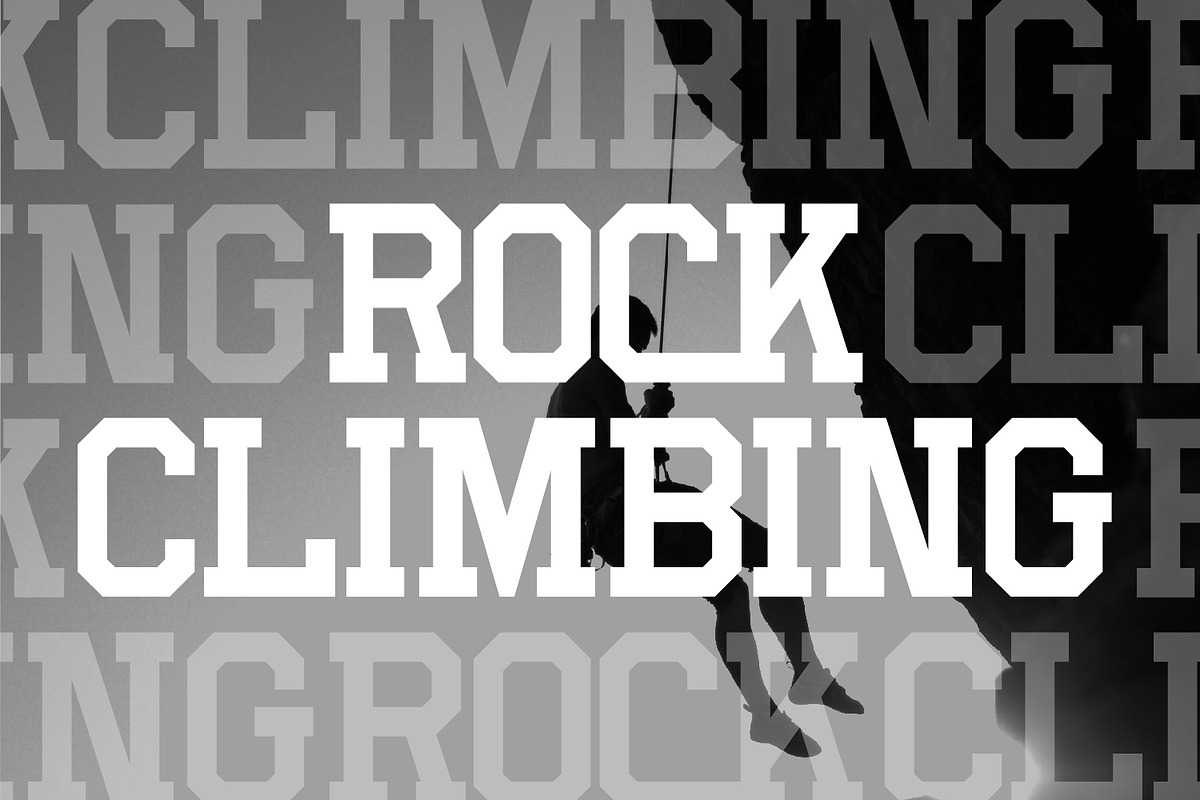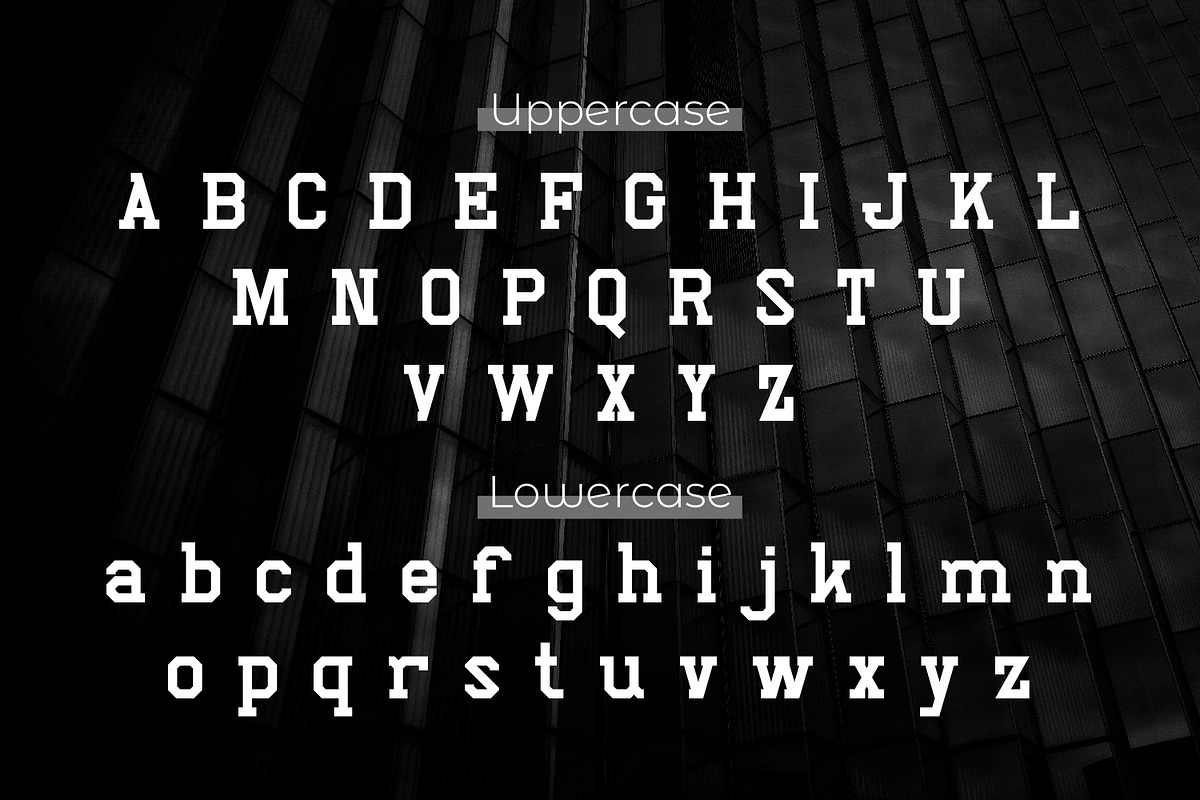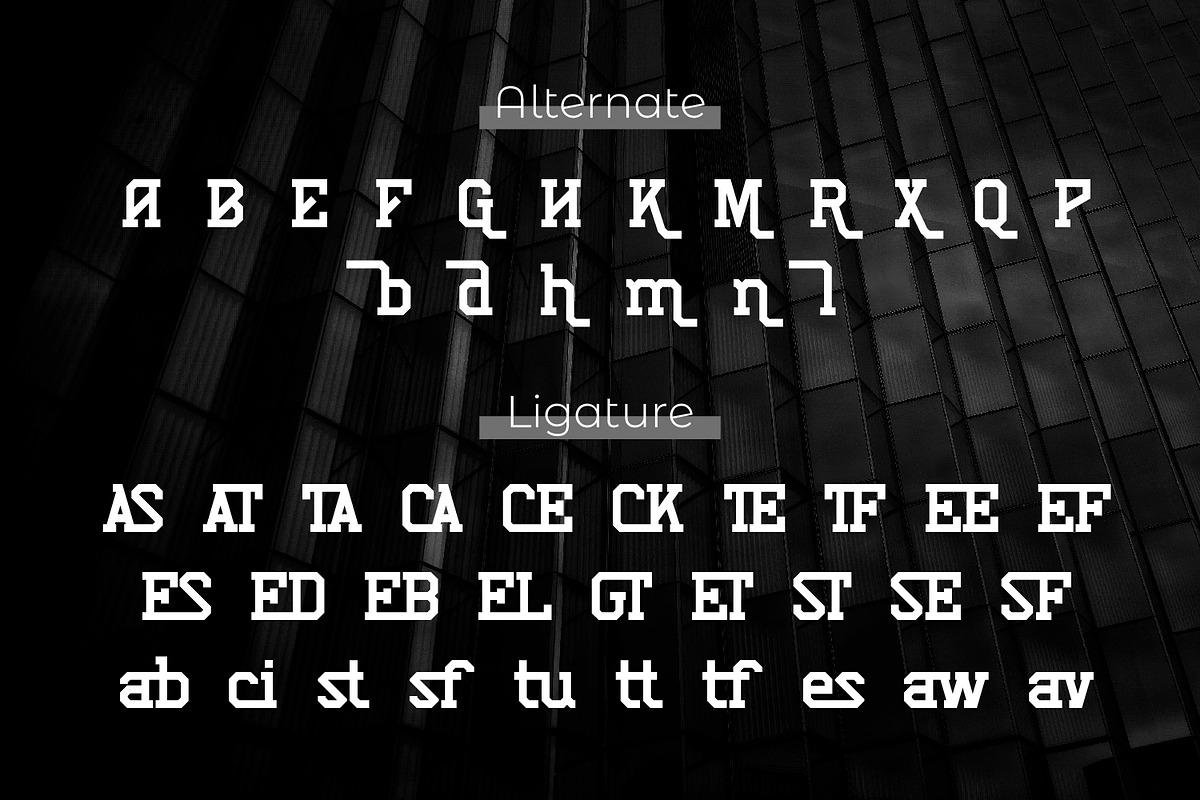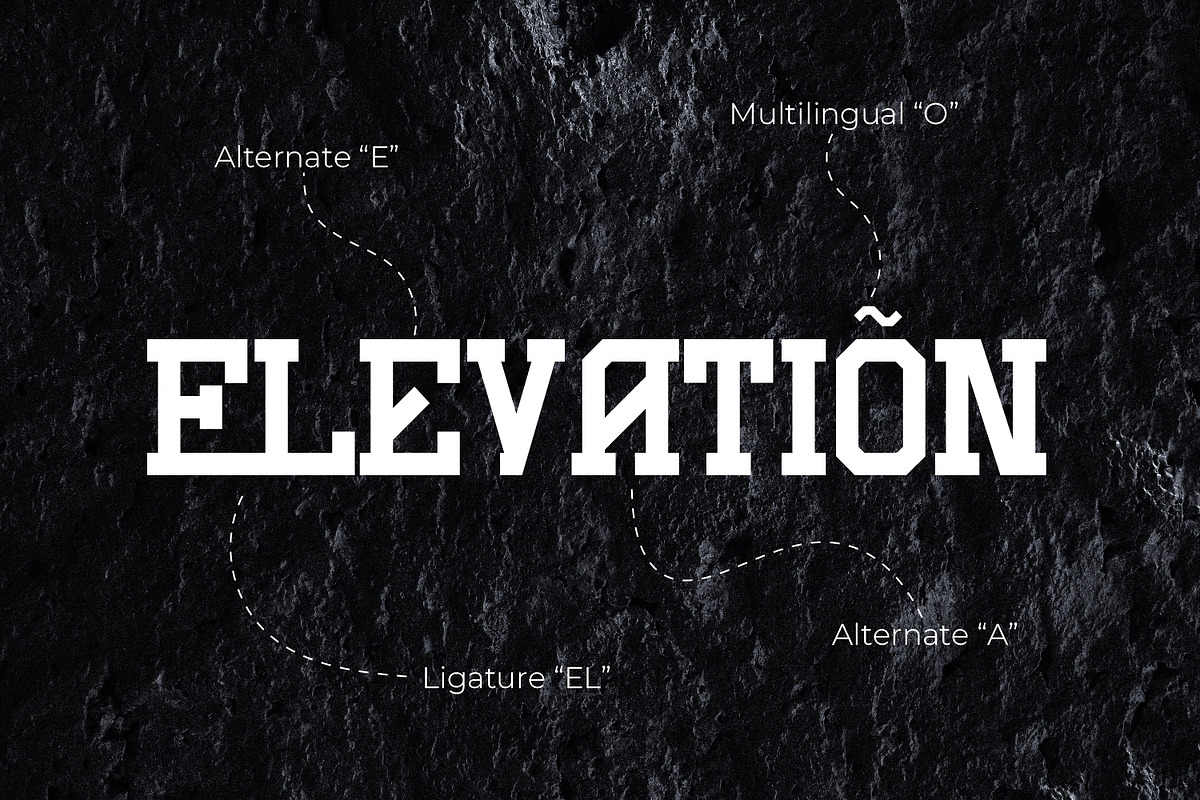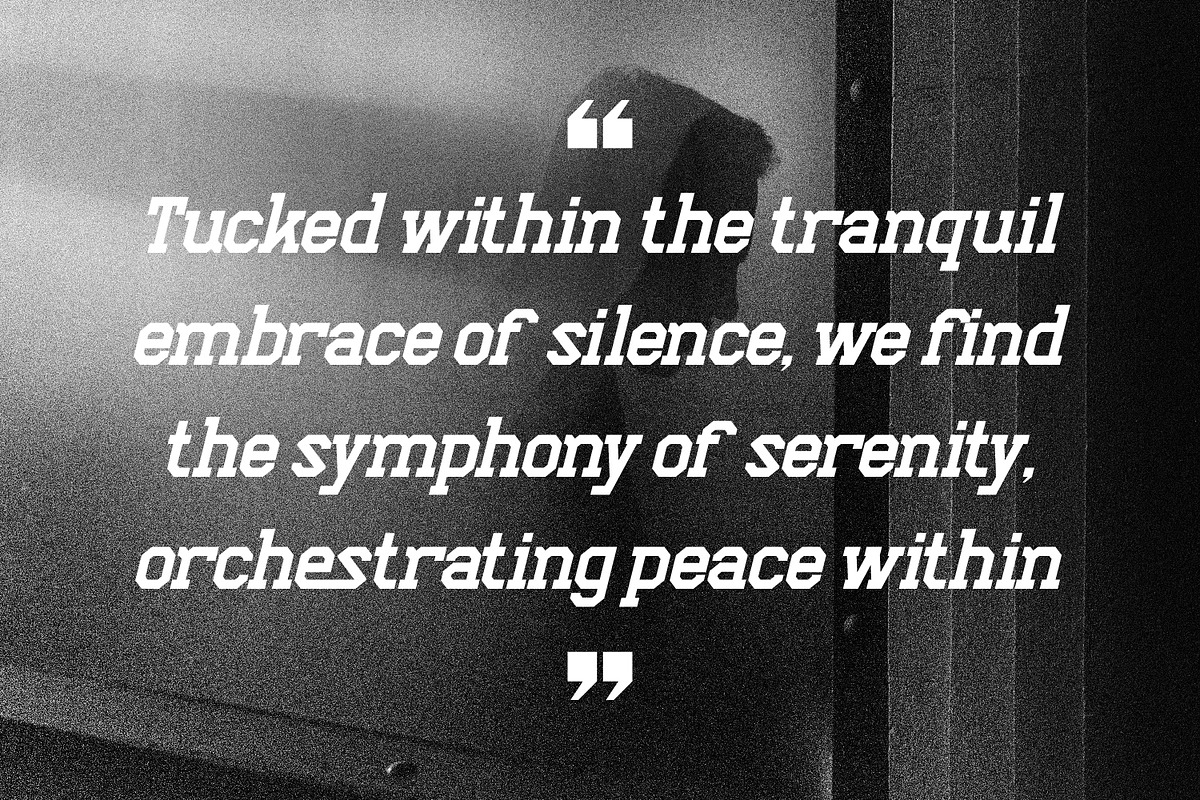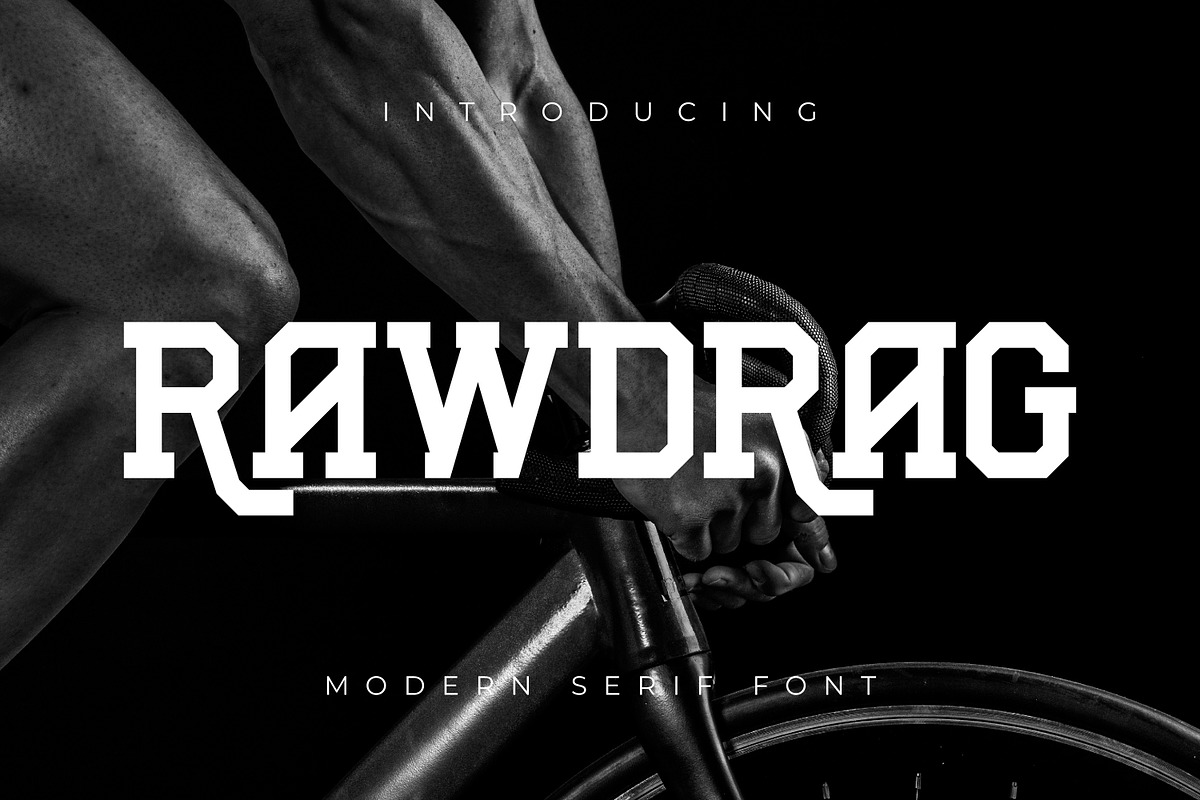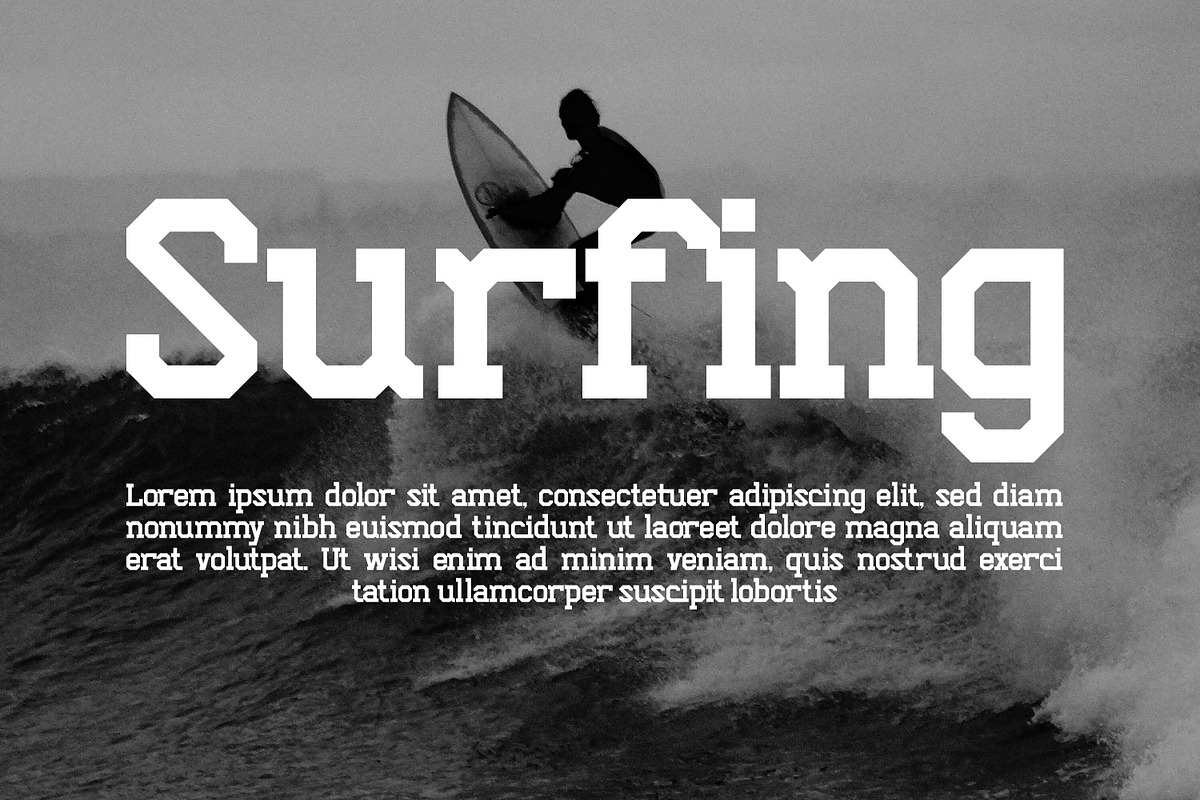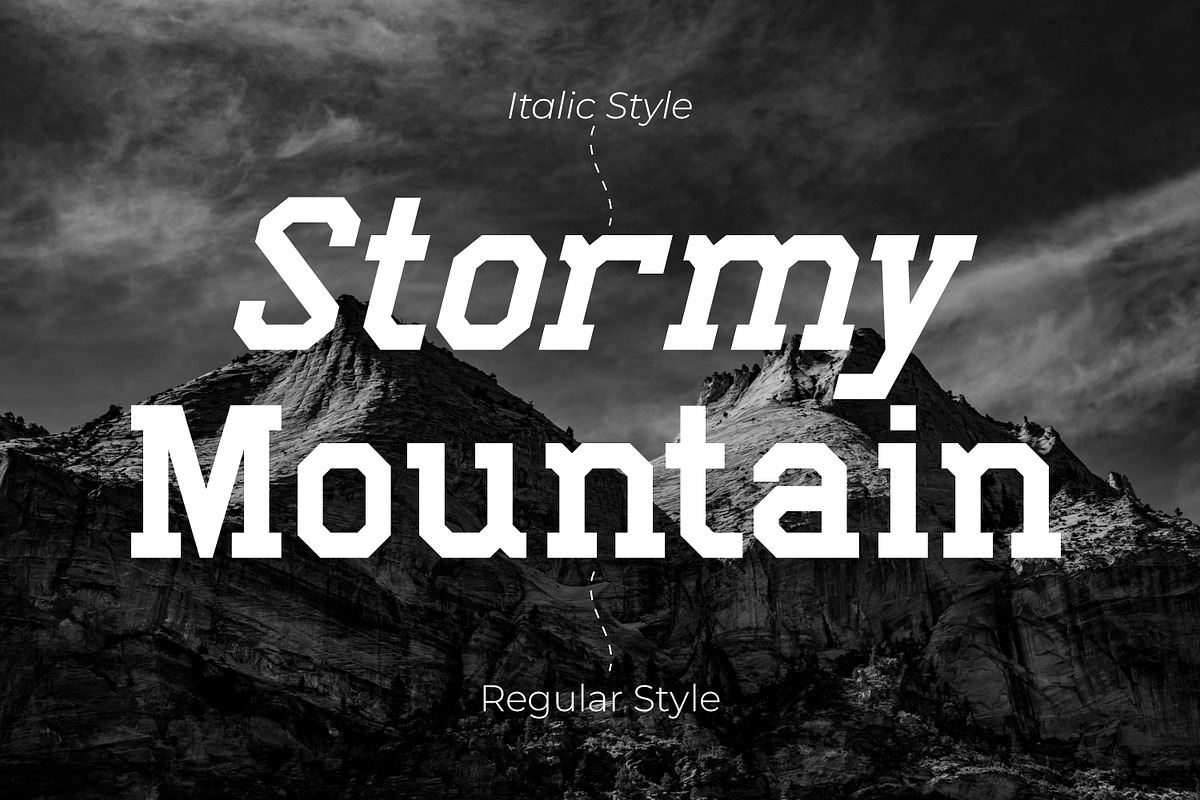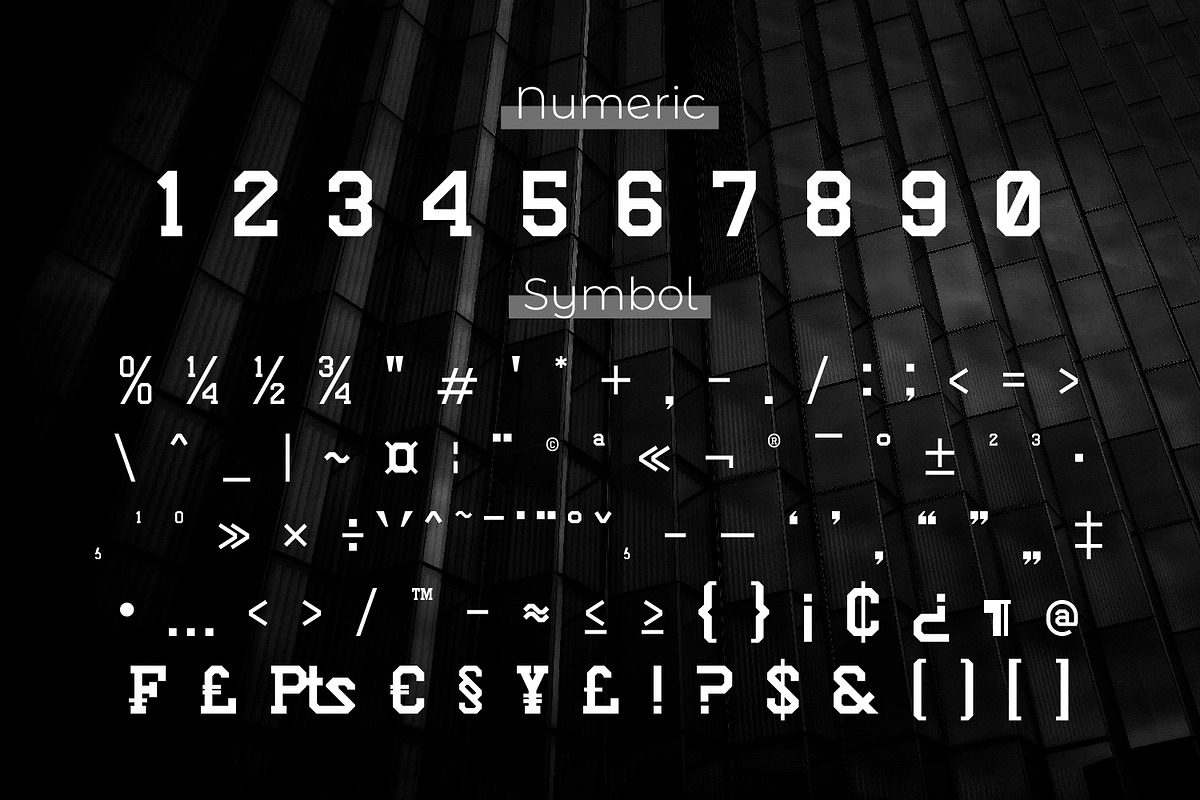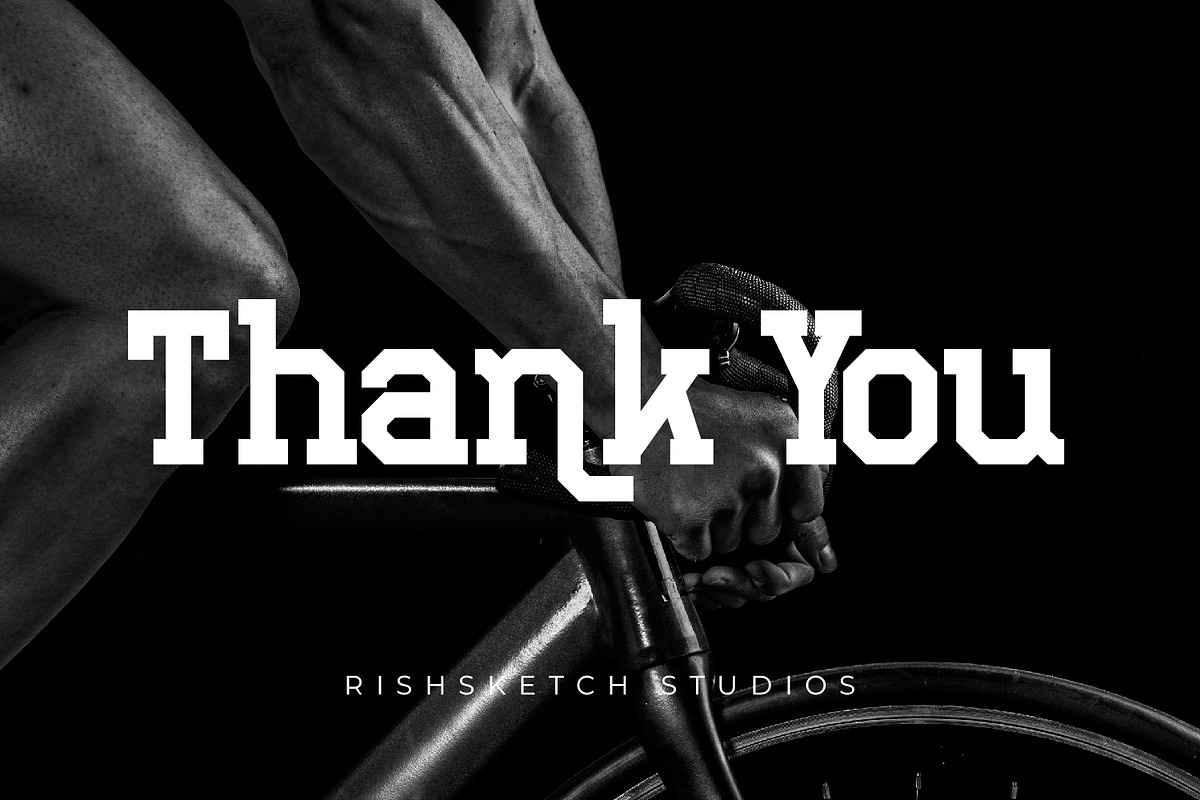
Rawdrag
Rawdrag - Modern Slab Serif Font, from Rishsketch Studios, is a premium Slab Serif Font, perfect for any project that requires a distinctive, and premium feel.
- Ligature, Alternate & amp; Multilingu